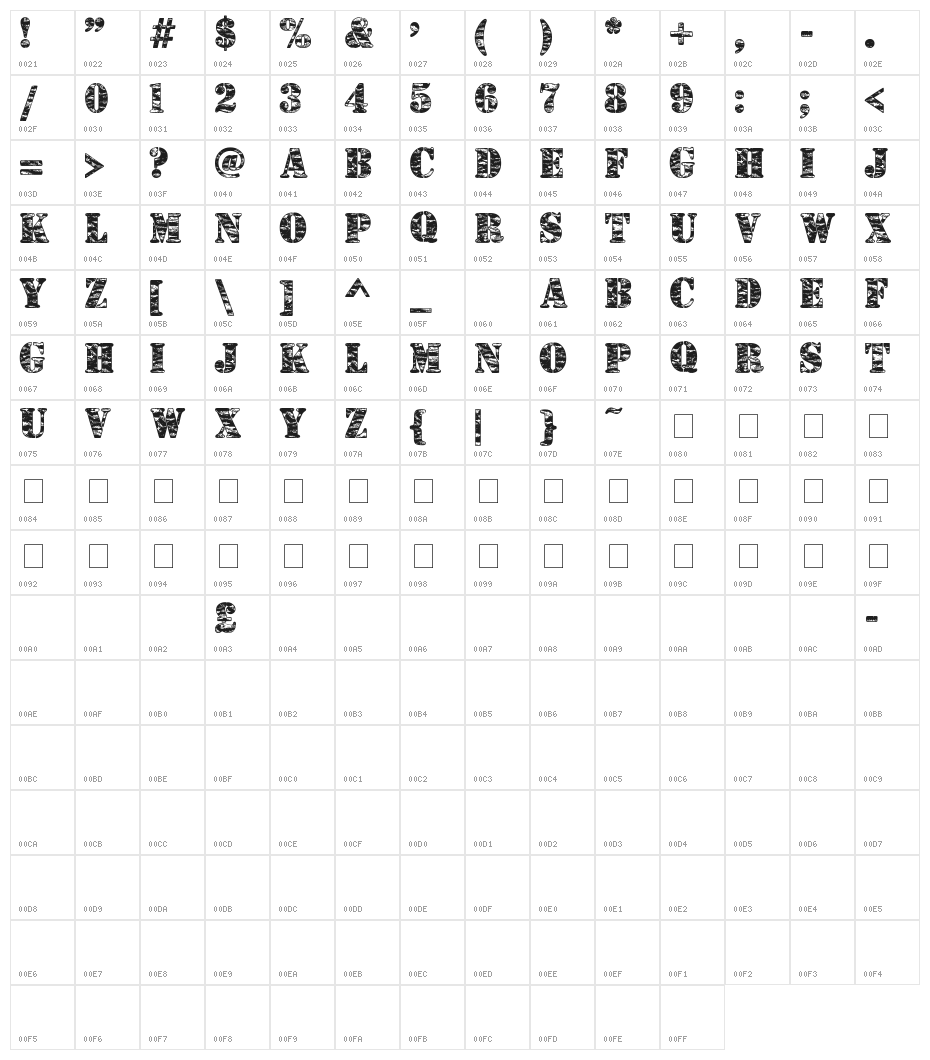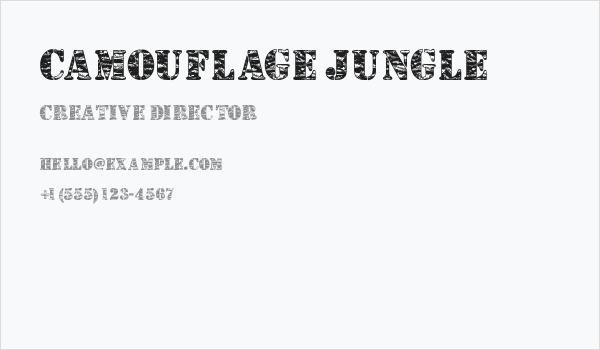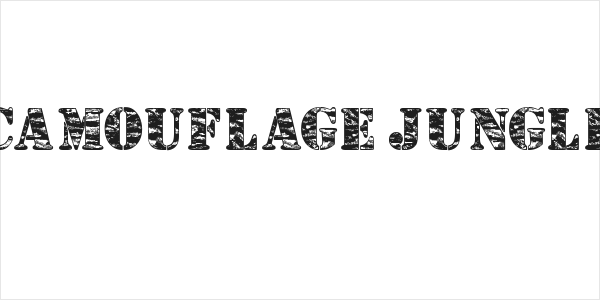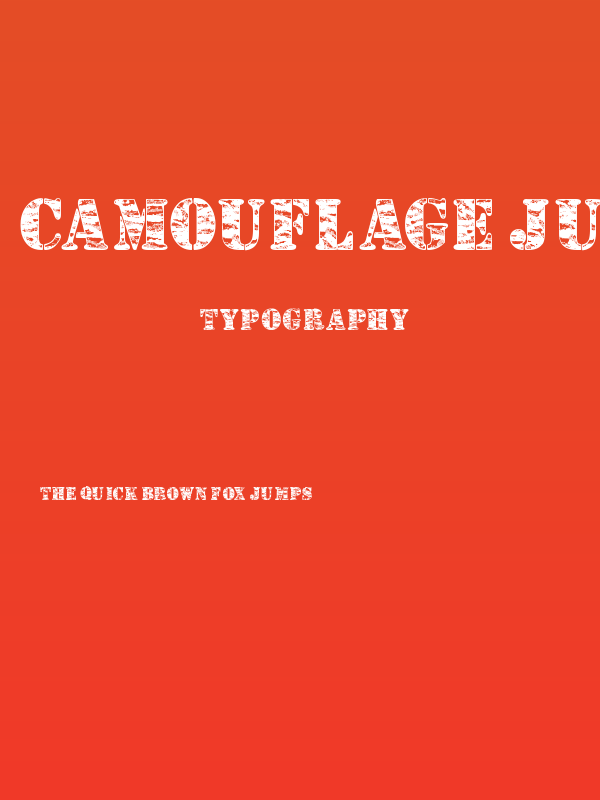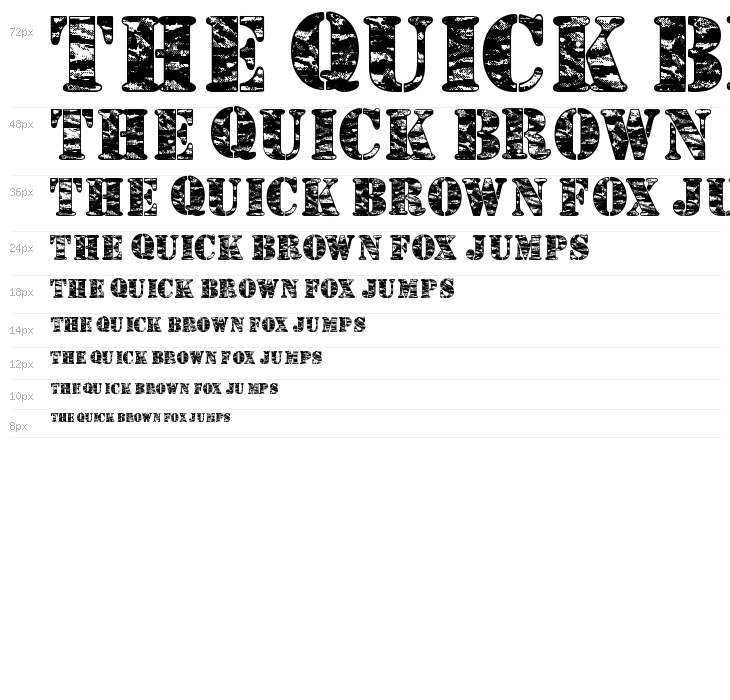
Camouflage Jungle Font
Camouflage Jungle Description
This font features a bold, rugged design with a camouflage pattern embedded within each character. The uppercase and lowercase letters, as well as numbers and special characters, are all styled with a distressed, textured look that mimics the appearance of jungle camouflage. The font's thick strokes and unique pattern make it stand out, offering a visually striking appearance that is both adventurous and bold. The design is reminiscent of military themes, outdoor adventures, and rugged terrains, making it ideal for projects that require a strong, impactful visual statement. The characters are well-defined, with a consistent pattern throughout, ensuring readability while maintaining its unique style.
| Use Case | Logos, Posters, Apparel |
| Proposed Projects | Ideal for military-themed designs, outdoor adventure branding, posters, and apparel graphics. |